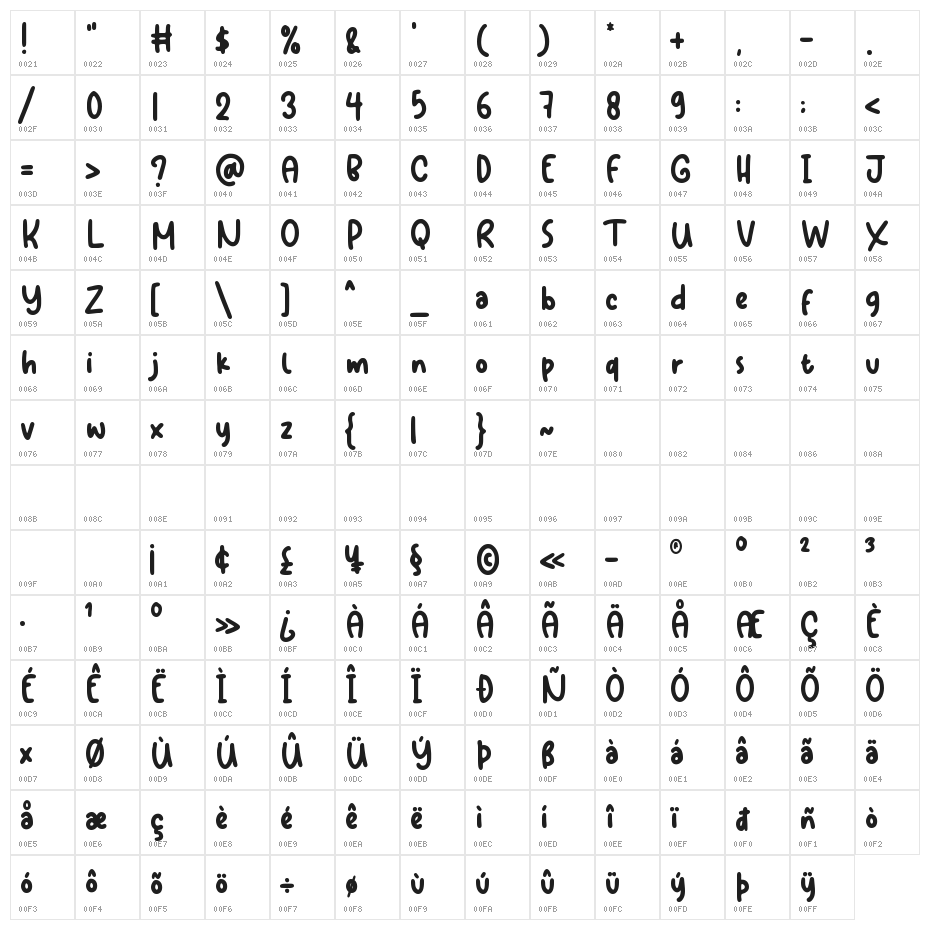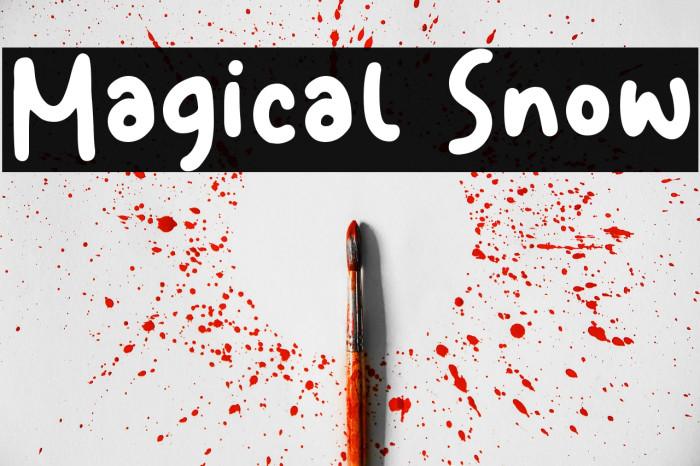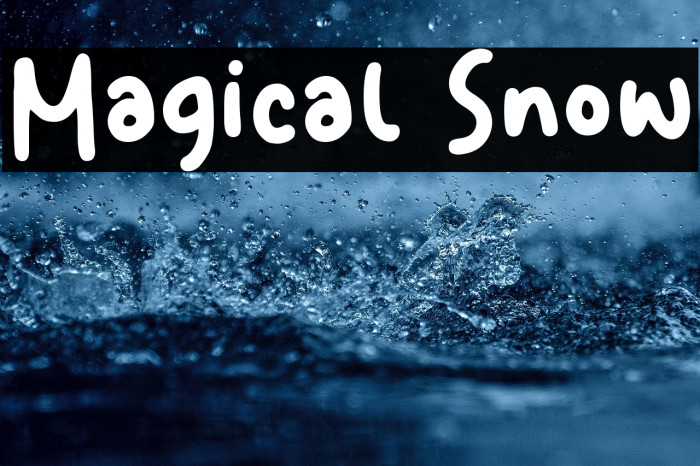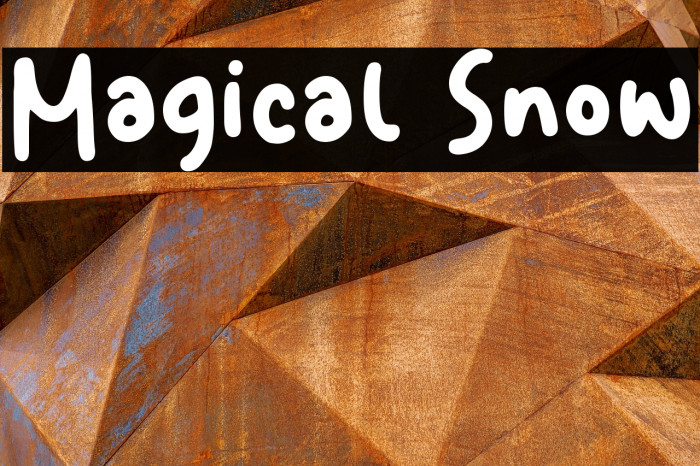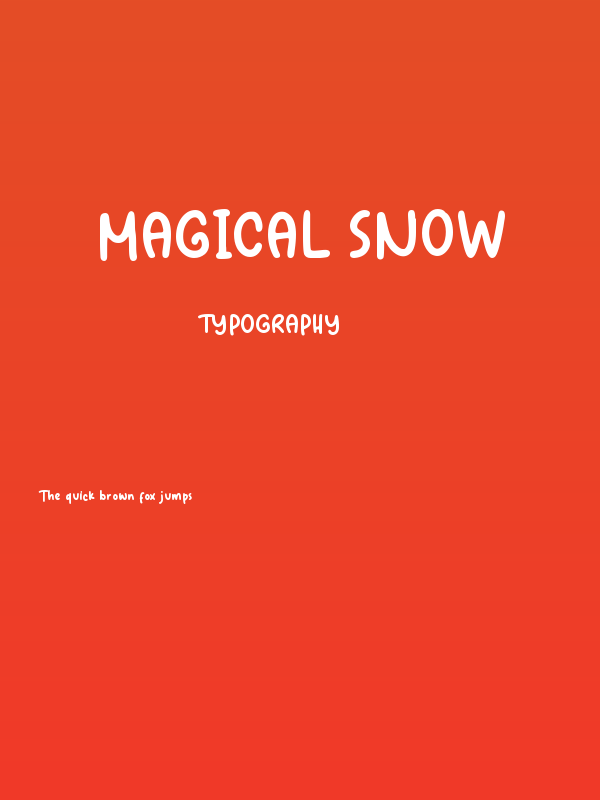
Magical Snow Font
Magical Snow Description
This playful and whimsical font features rounded, smooth edges and a hand-drawn aesthetic that evokes a sense of fun and creativity. The characters are bold and slightly irregular, giving them a unique charm. The uppercase and lowercase letters maintain a consistent style, with a slightly exaggerated height that adds to their playful nature. Numbers and special characters are designed with the same quirky style, making them easily recognizable and cohesive with the rest of the font. This font's friendly and approachable look makes it ideal for projects that require a touch of personality and warmth.
| Proposed Projects | Ideal for children's books, greeting cards, playful branding, and creative posters. |